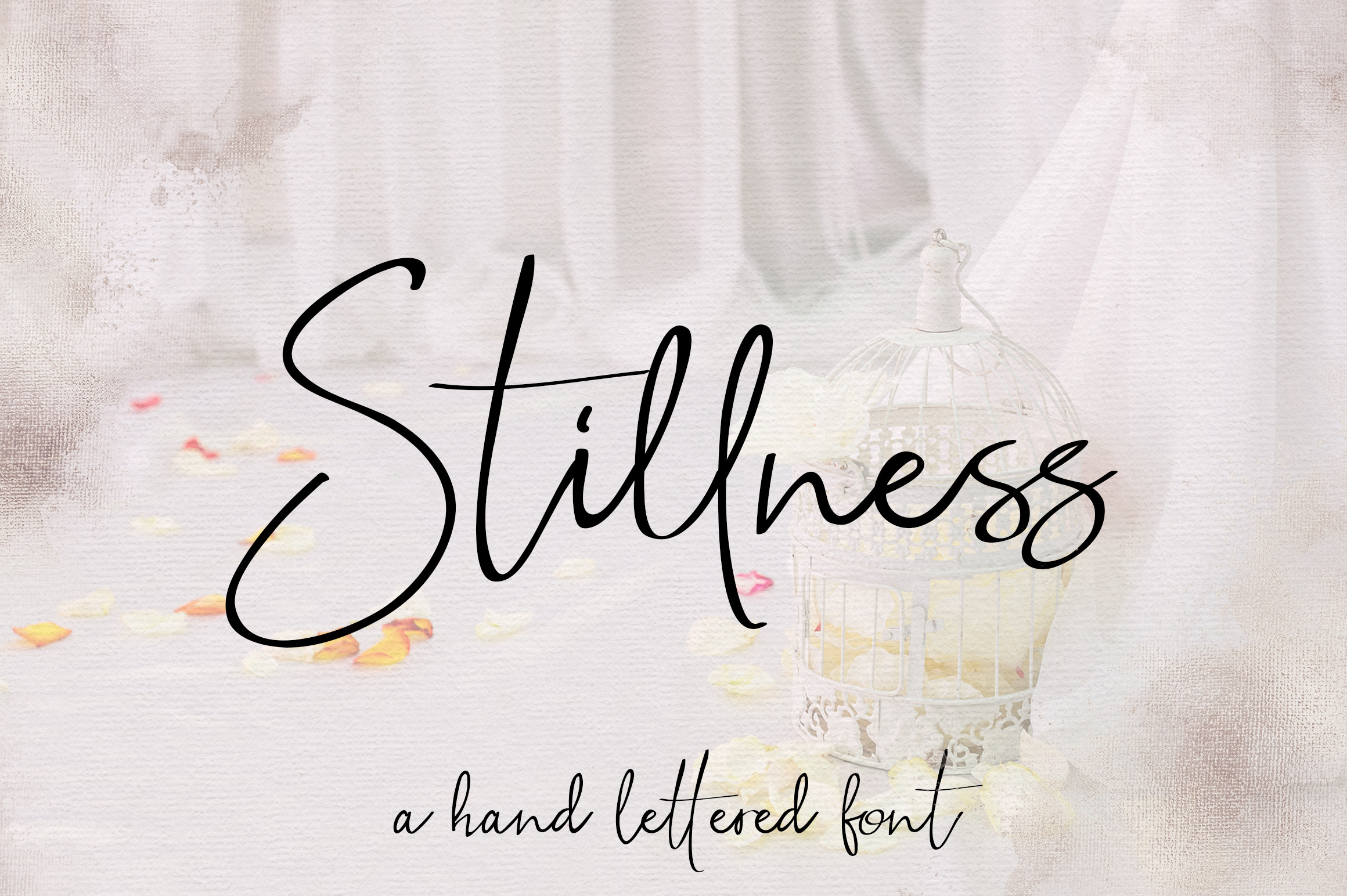
Stillness Handwritten Script Font
Hi, and thanks for stopping by! I'm introducing the new hand lettered font from Savanamm Design, Stillness Script Font with a real handwritten feel. Ideal for branding material, logos, modern wedding invitations... I recommend installing the .OTF version and you can start using the font. In case you have the programs that don’t support the open type files, install the .TTF version.